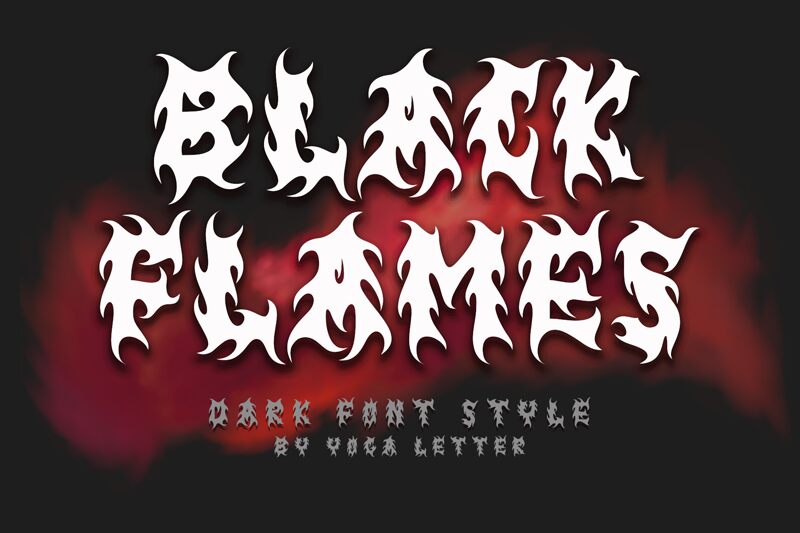
Black Flames font by Yoga Letter is a gothic-inspired, hand-drawn font that brings a unique, fiery touch to any design. With dynamic shapes and visually striking details, this typeface blends medieval inspiration with an aggressive aesthetic, perfect for making a dramatic impact. Its rebellious tone is enhanced with unique elements, offering an unusual and authentic look to your text.
Embrace the beauty of Black Flames font in your poster design, graphics, magazine covers, book covers, typography projects, album art, and branding visual identity. This font is perfect for horror themes, product packaging, flyer design, apparel branding, social media posts, and short quotes.